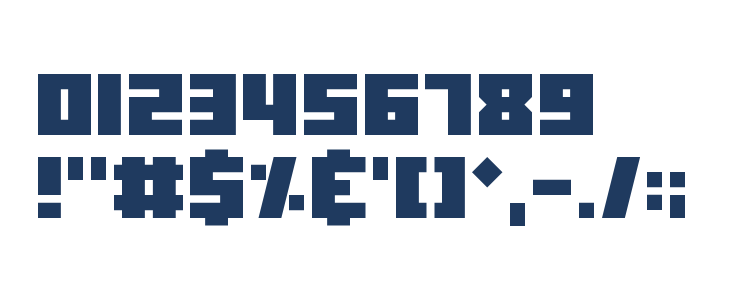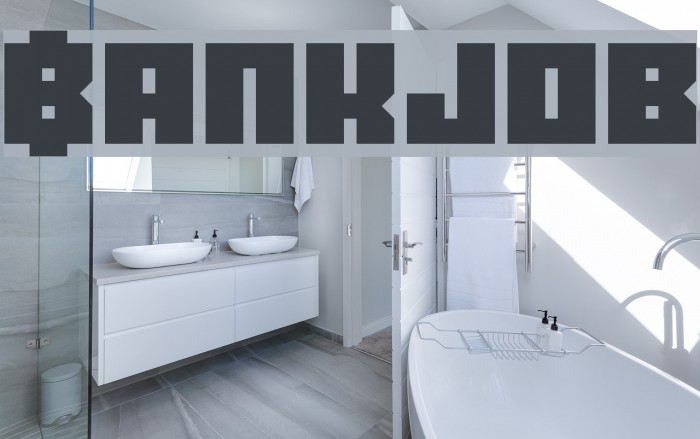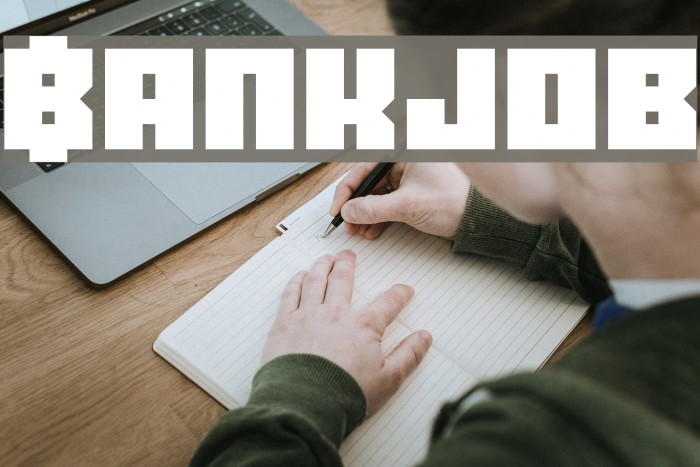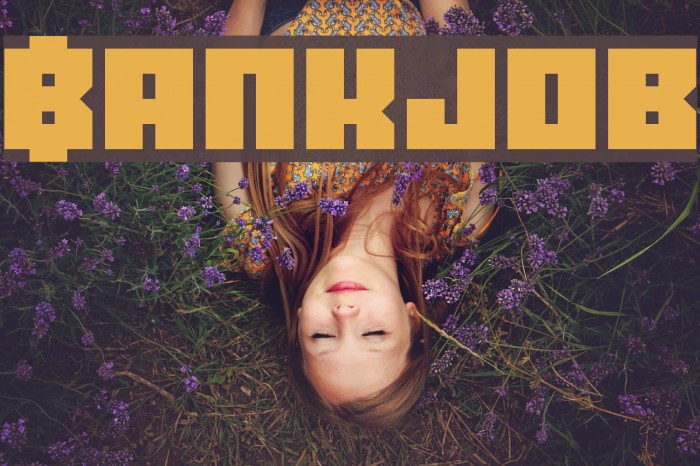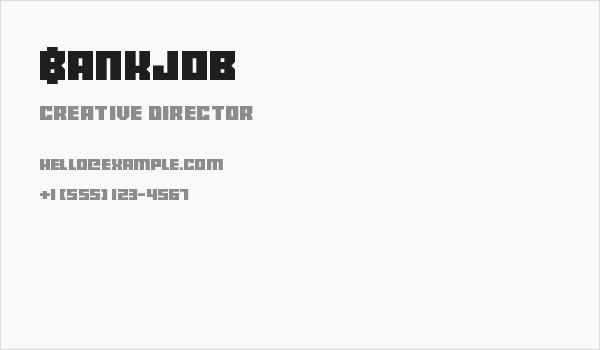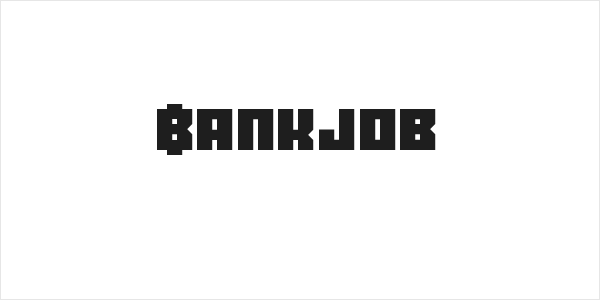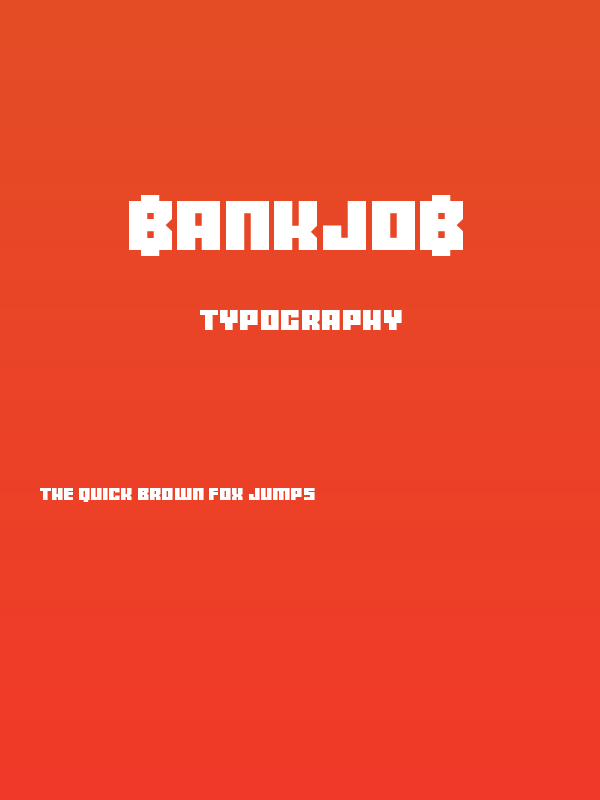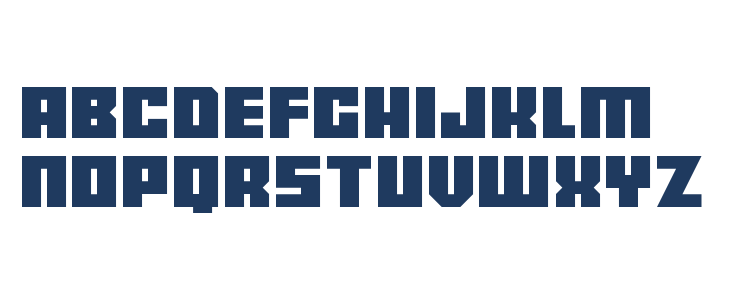
Bankjob Font
Bankjob Description
This font features a bold, blocky design with a strong geometric influence. The characters are uniformly thick, giving it a robust and impactful appearance. The uppercase letters are particularly striking, with sharp angles and a consistent height, while the lowercase letters maintain the same boldness, ensuring readability and uniformity. The numerals and special characters follow the same design principles, making them easily distinguishable and cohesive with the overall style. This font's heavy weight and solid structure make it ideal for attention-grabbing designs.